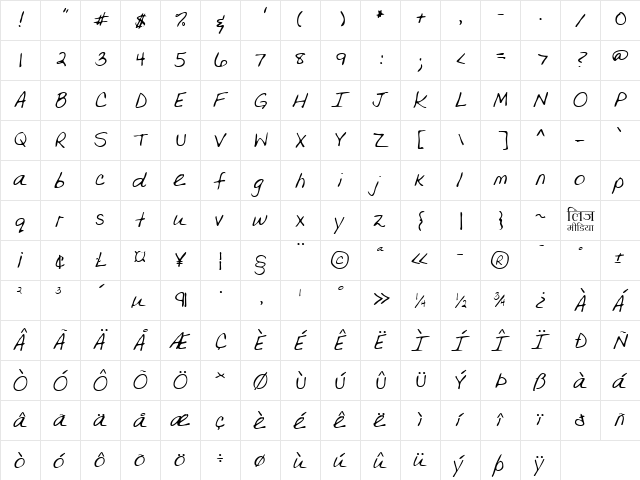
LEHN169 Regular
Design Context for LEHN169 Typeface
LEHN169 takes a measured approach to typography — its balanced proportions and neutral character make it a reliable workhorse for both digital and print work.